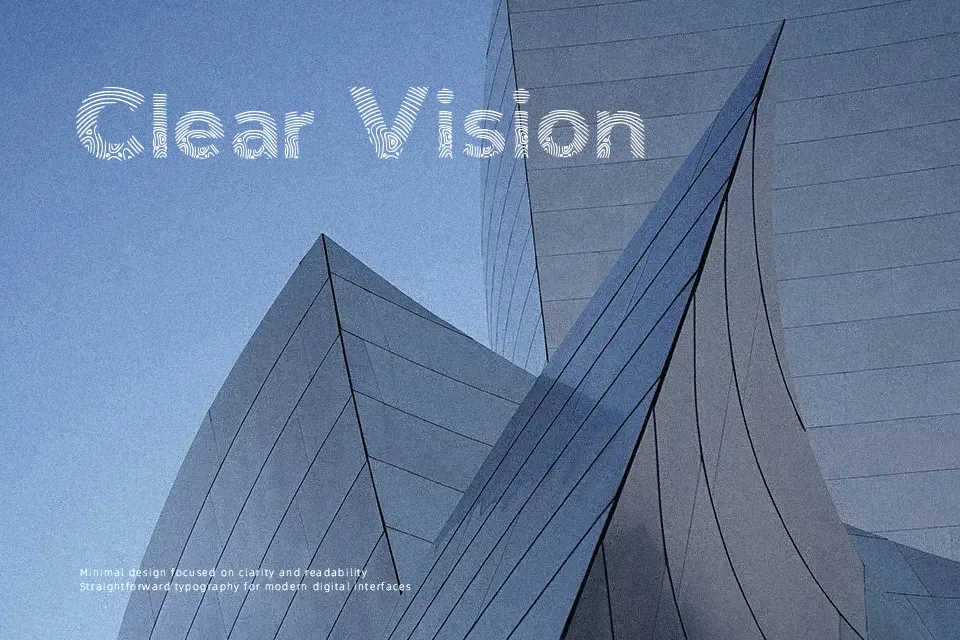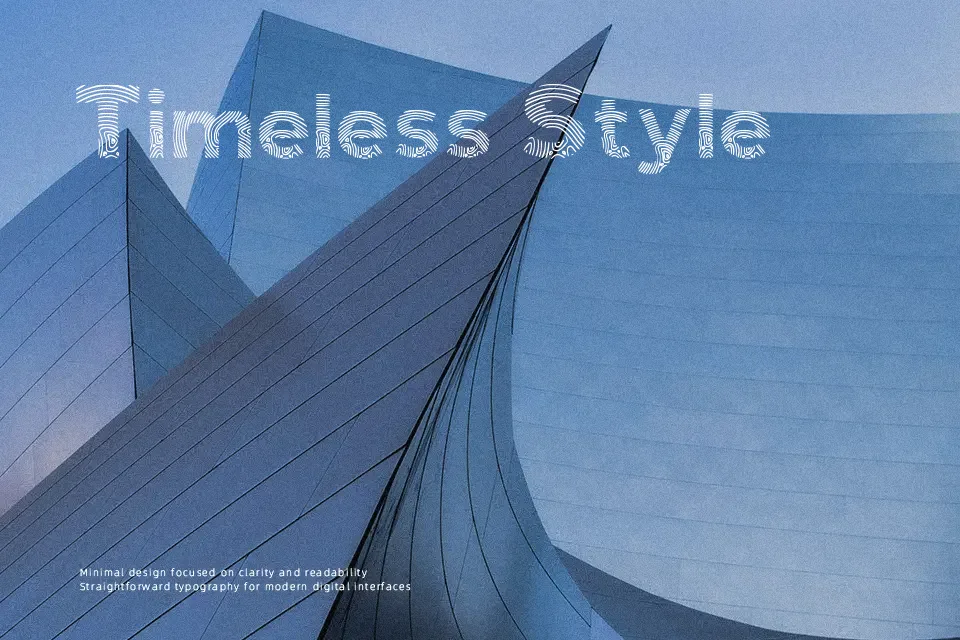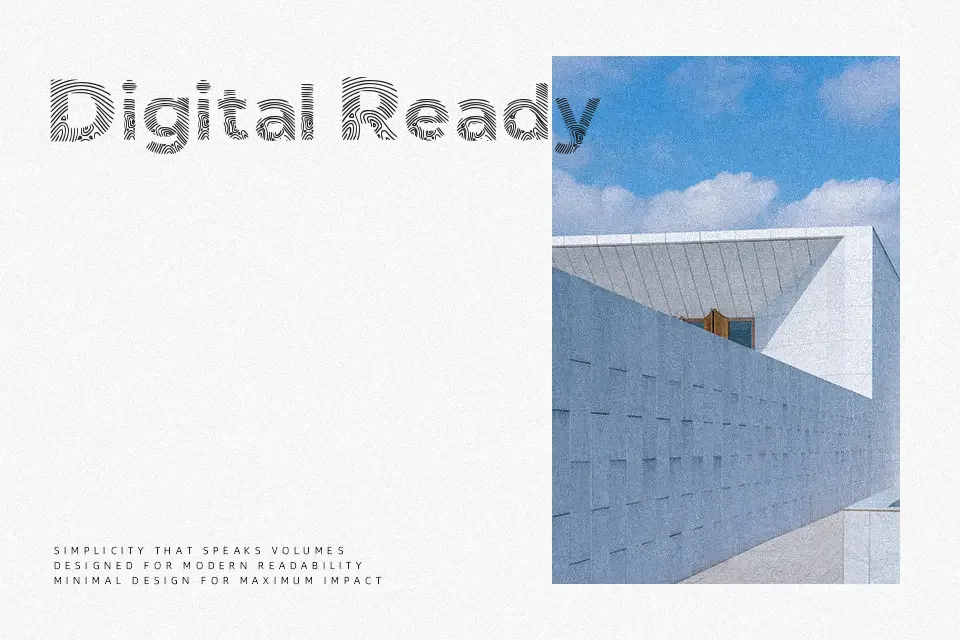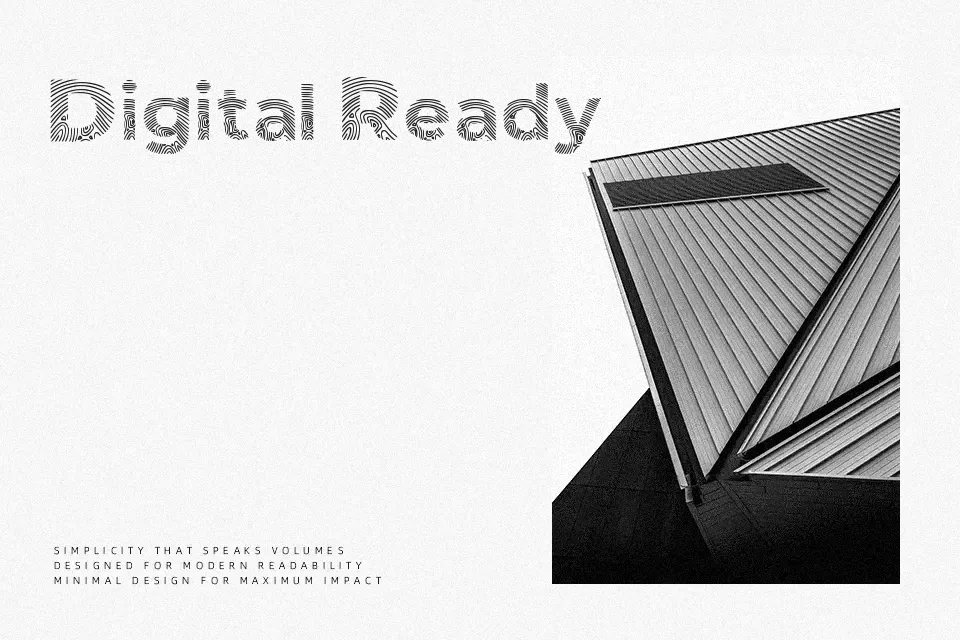
Biometro Gothic Font
Biometro Gothic delivers a highly technical visual experience through its precise geometric structure and distinct decorative elements. The letterforms feature sharp strokes and a deliberate weight that mimics the precision of digital scanning interfaces. Its overall aesthetic feels distinctly modern and systematic, leaning into a cybernetic display style. This typeface shines when deployed in sci-fi movie titles, esports team branding, or cyber-security software interfaces, where its distinct personality reinforces a high-tech atmosphere. However, because of its stylized nature and rigid mechanical geometry, Biometro Gothic falls flat in extended body paragraphs or conventional corporate documents where maximum legibility is required. It shares conceptual DNA with other data-driven display fonts, yet maintains its own unique digital signature.
Sci-fi gaming main titles and heads-up displays
Cyber-security software branding
Electronic music festival promotional materials
Dense editorial paragraphs requiring extended reading
Traditional corporate legal documents
Organic or nature-inspired brand identities
Perfect for gaming, headline, and logo, with a creative and decorative style.